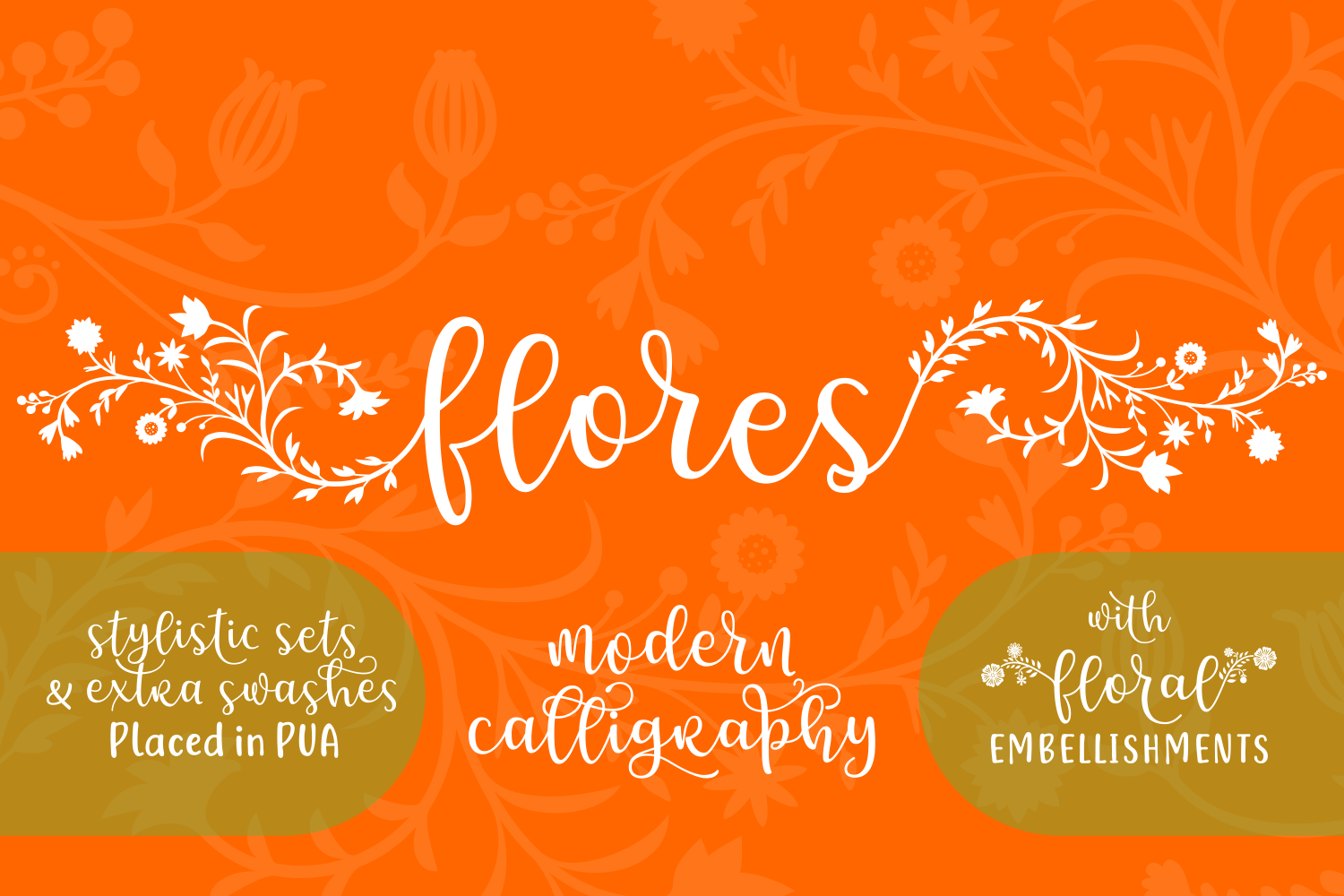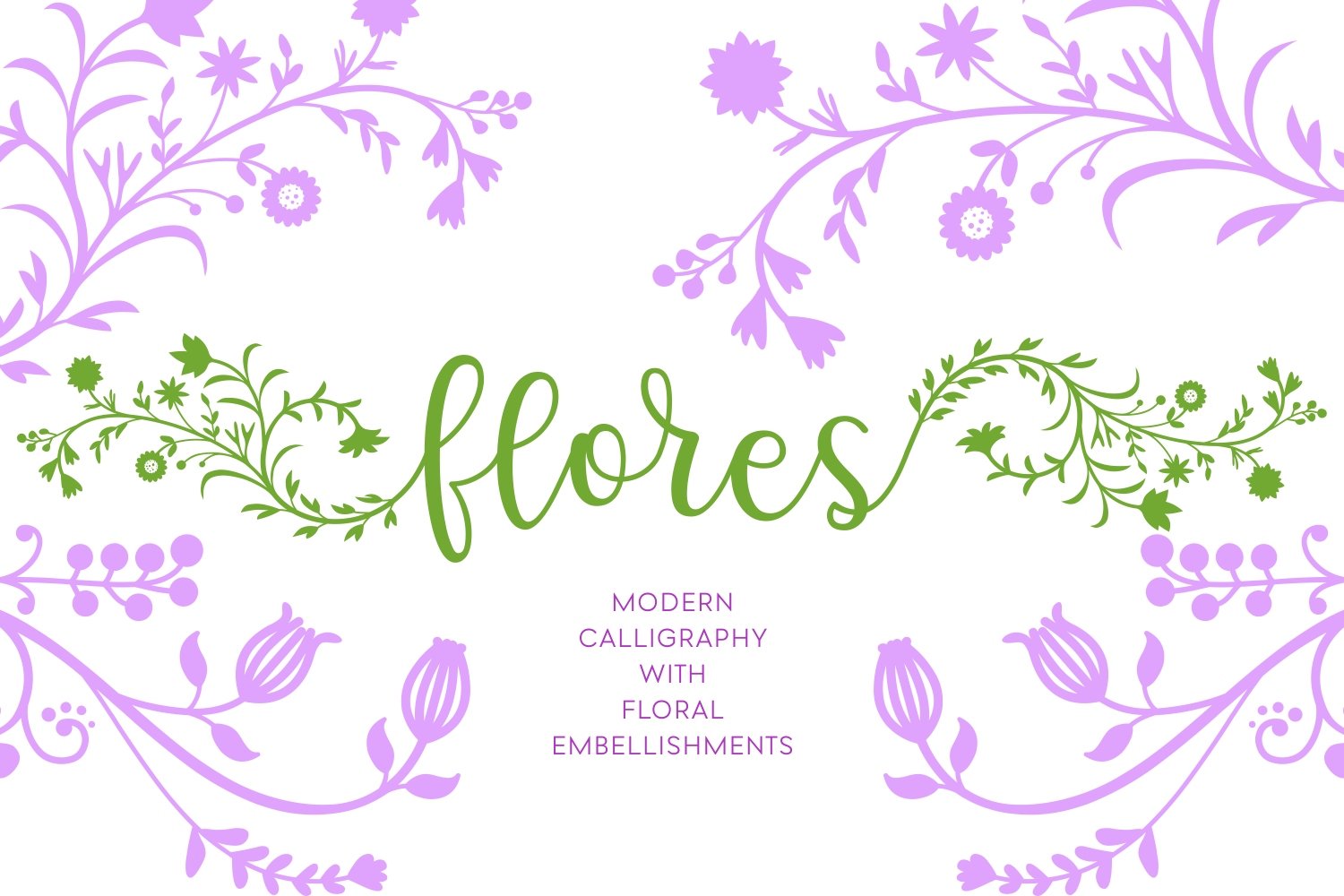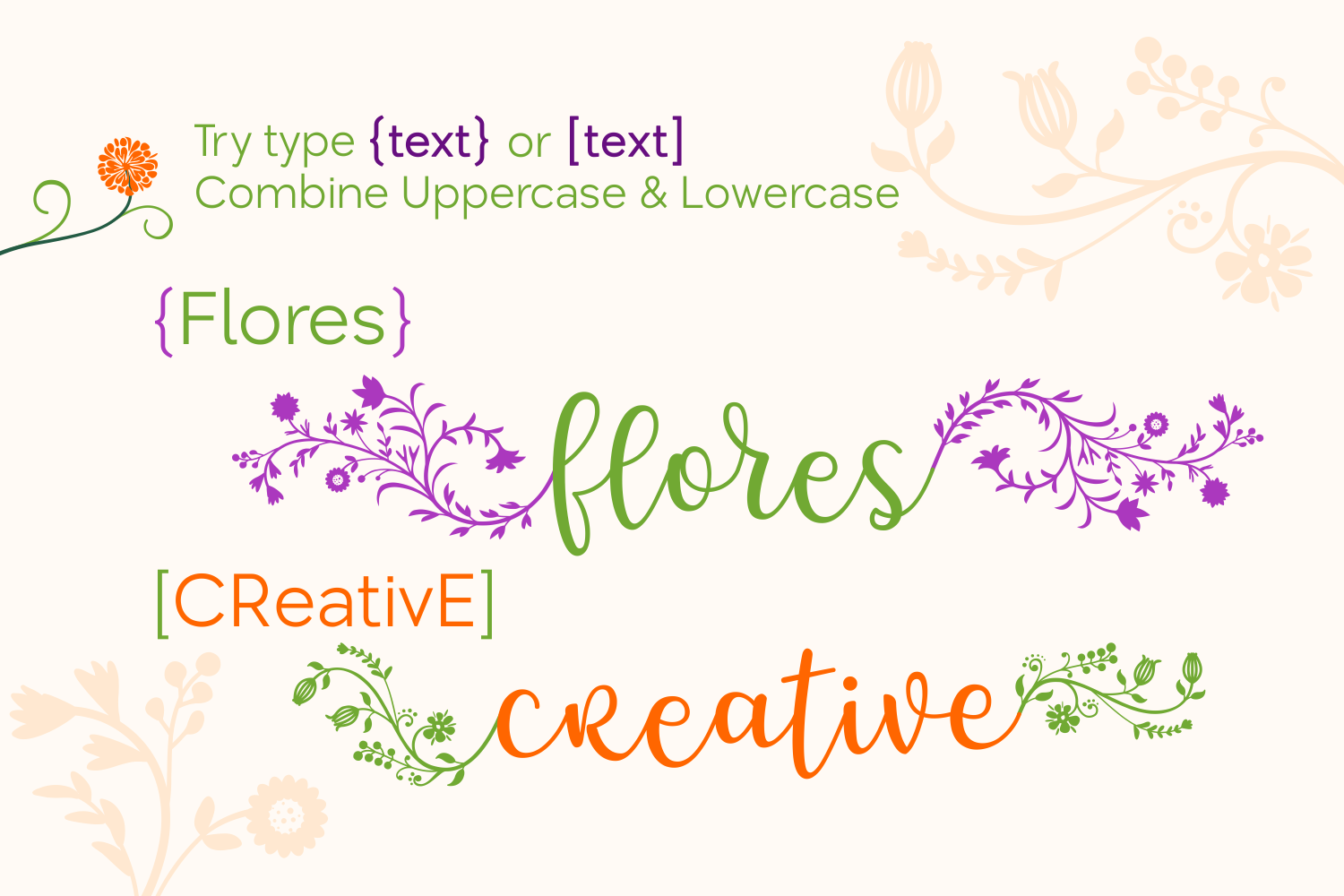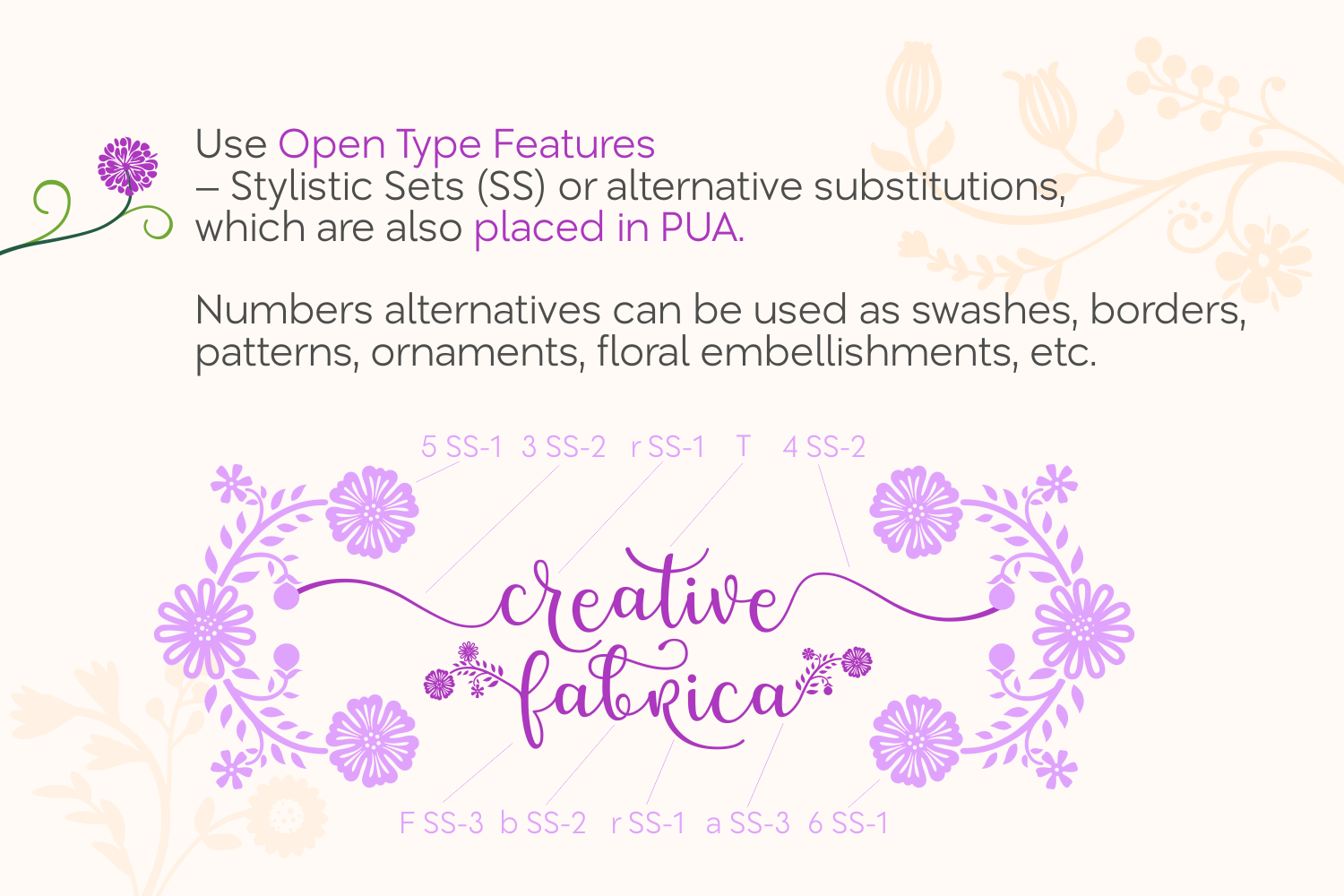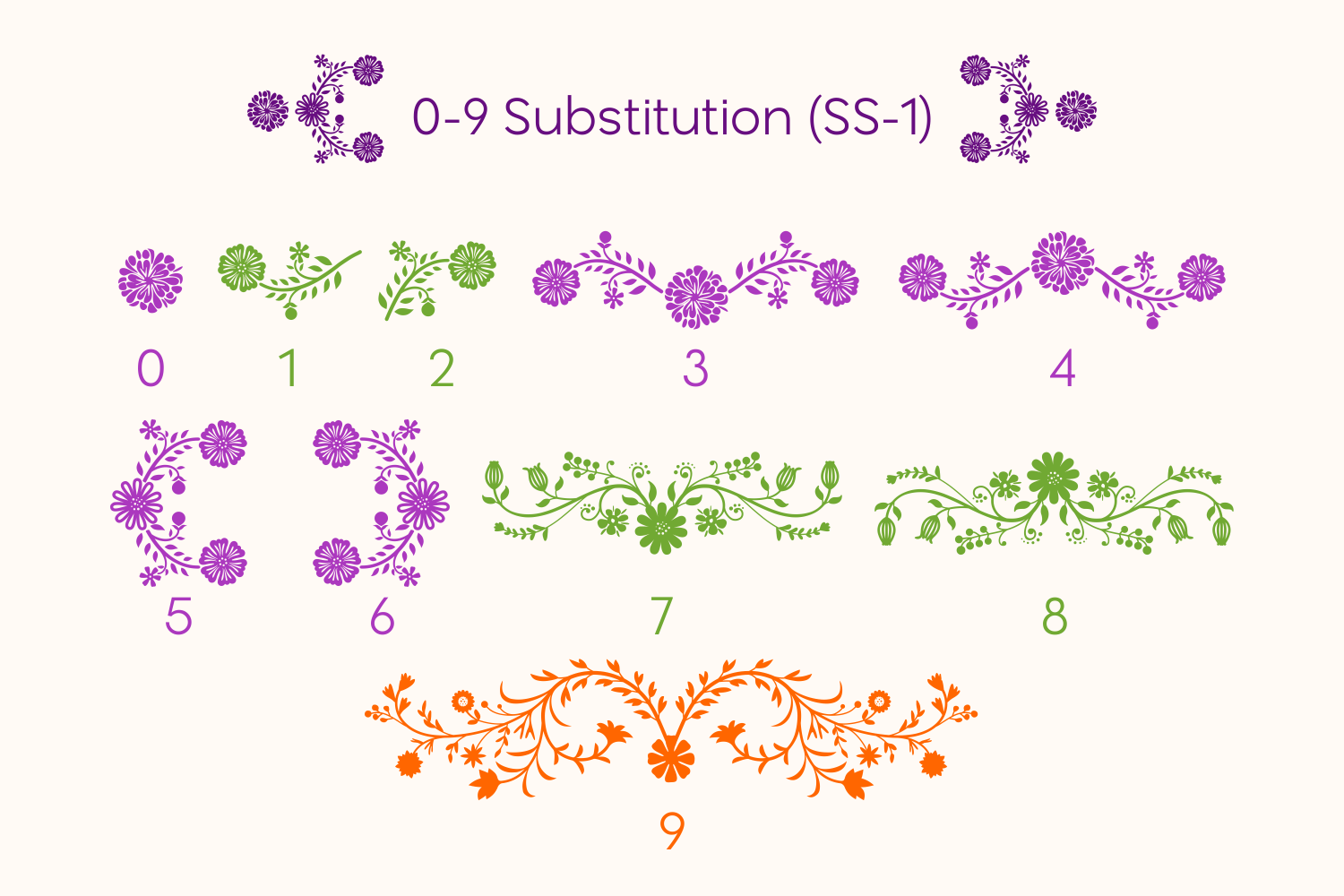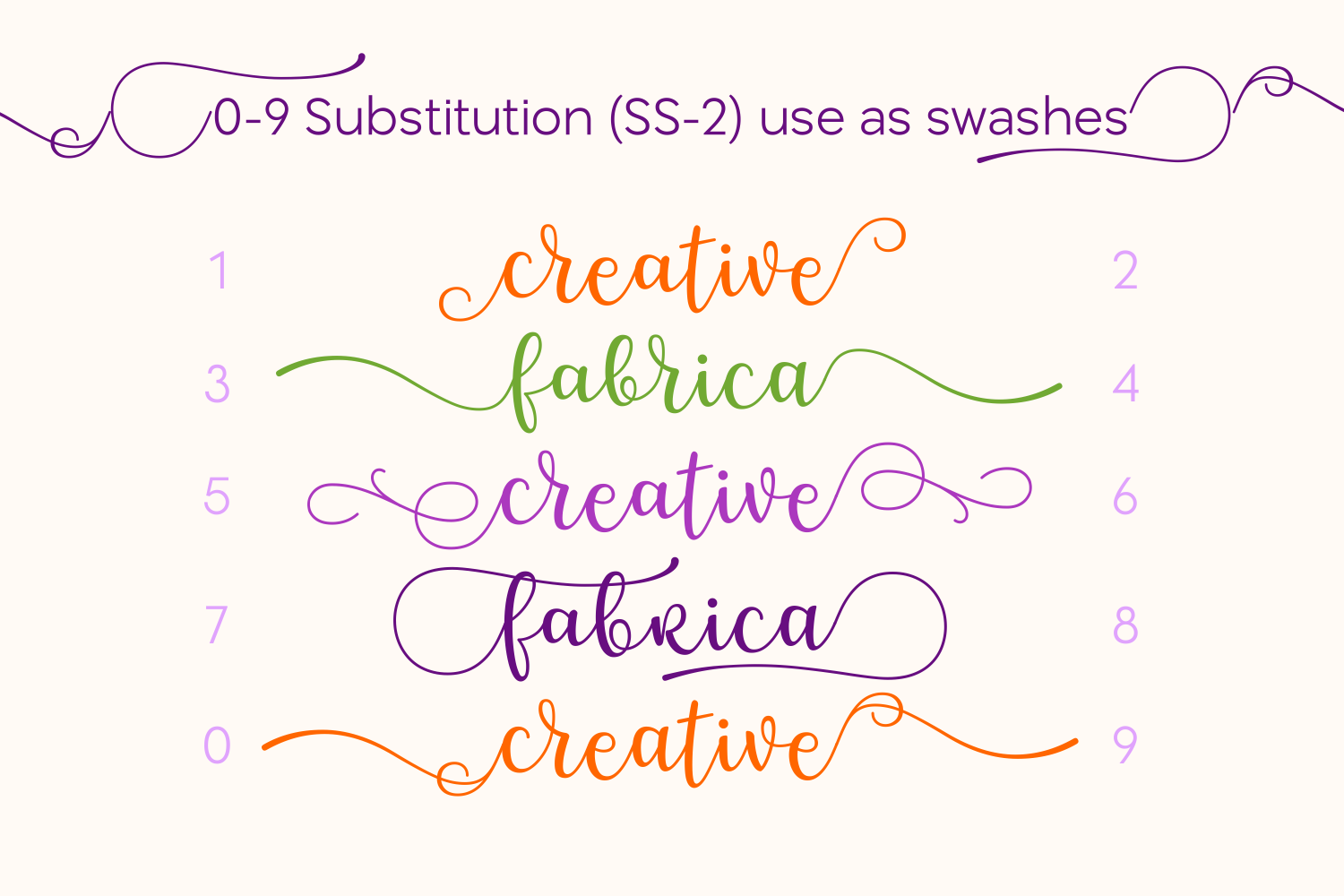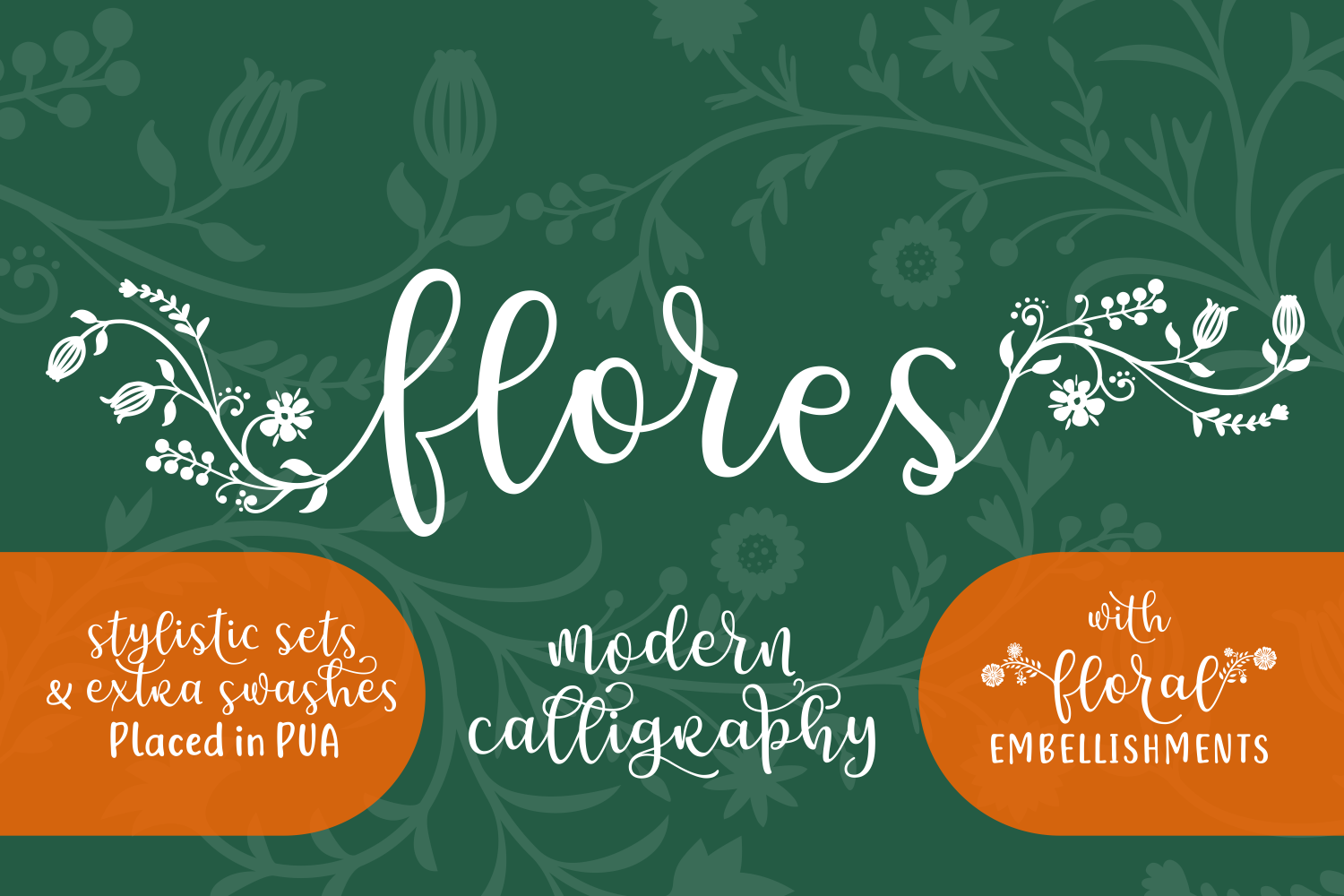
Flores Font
About Flores Font
Flores is a modern calligraphy font packed with beautiful floral swashes. Because these swashes are integrated in the font, it looks and feels very natural.
This font is perfect for creating beautiful decorative designs. Besides the floral decorative swashes, the font also includes gorgeous traditional swashes. Flores will allow you to create some unique, memorable designs.